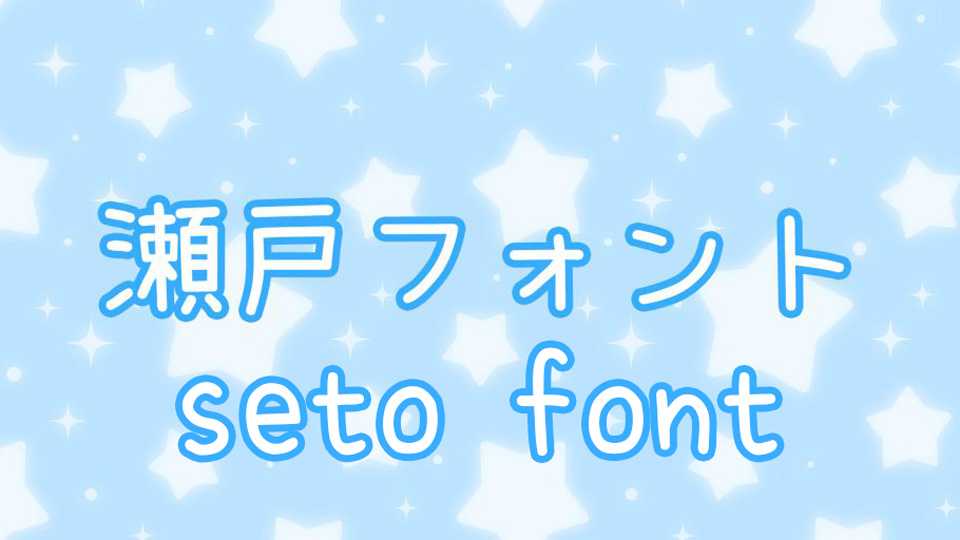
Download Seto font, a simple and cute handwritten typeface that also contains difficult Kanji and Unicode characters. Seto font is perfect for adding a personal touch to any message.